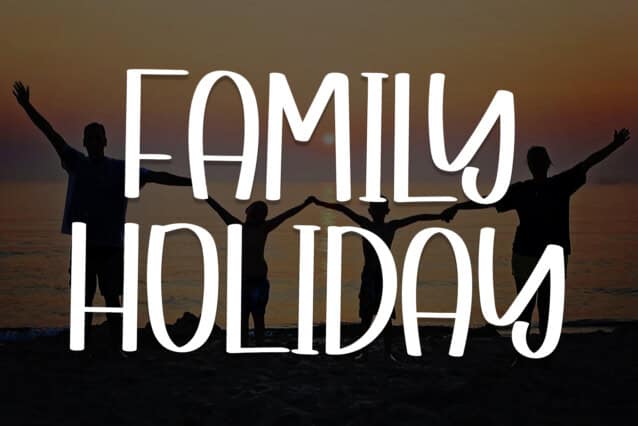
Homemade Brush Font
Homemade Brush Font is a stylish handwritten font with a contemporary atmosphere and impeccable form, inspired by a timeless classic calligraphy. Balanced and varied, this font was designed to enhance the beauty of your projects.